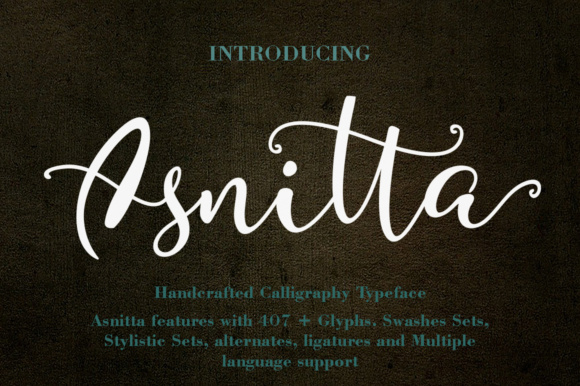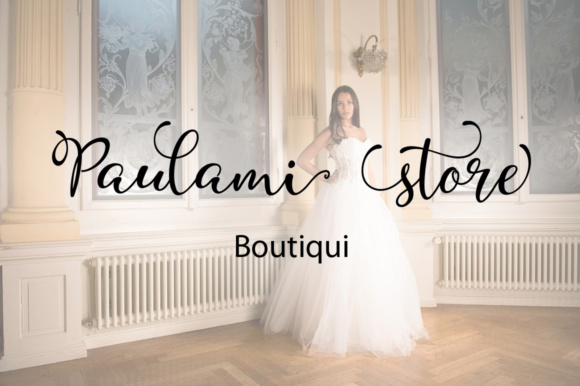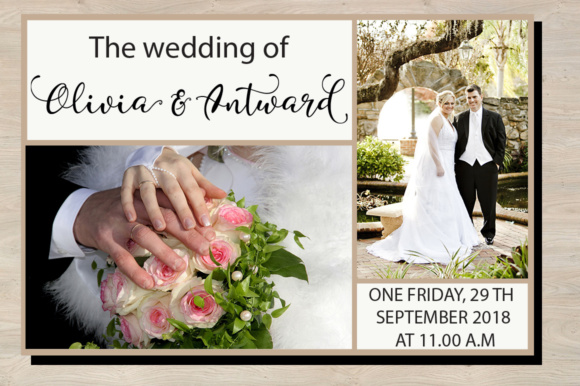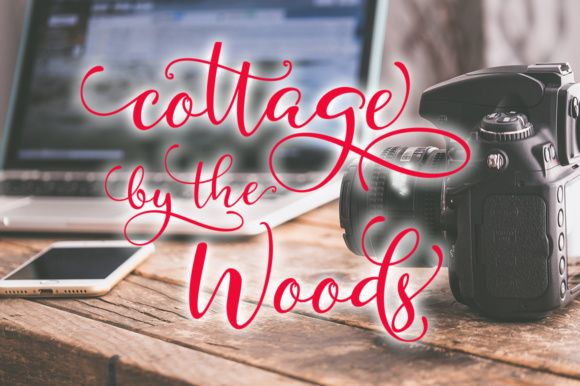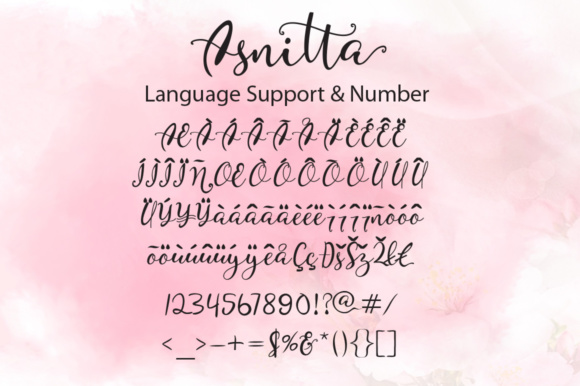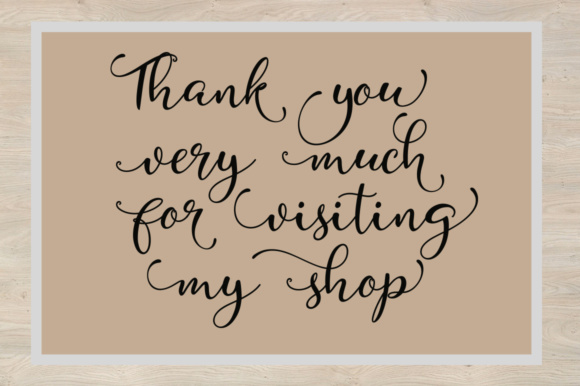
Asnitta Font
About Asnitta Font
Asnitta is a lovely, playful script font.
Packed with stunning alternates and swashes, you can use this font for many different types of projects.